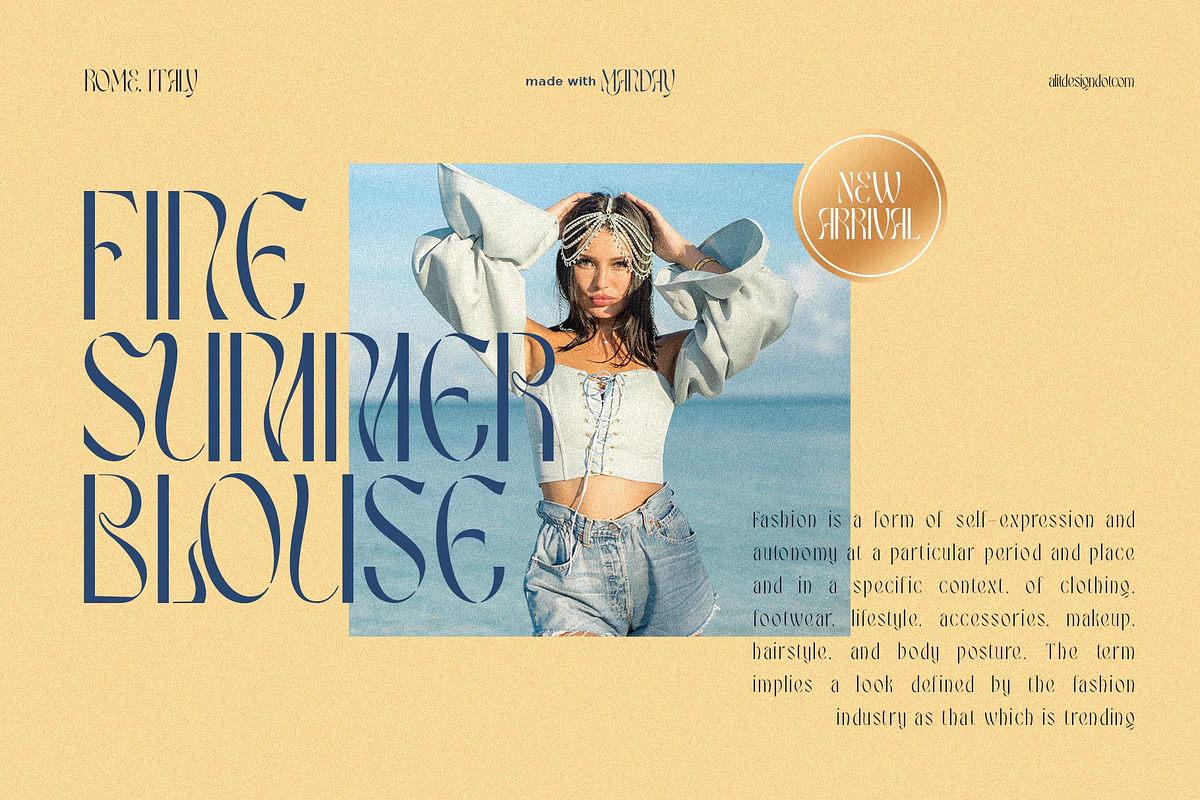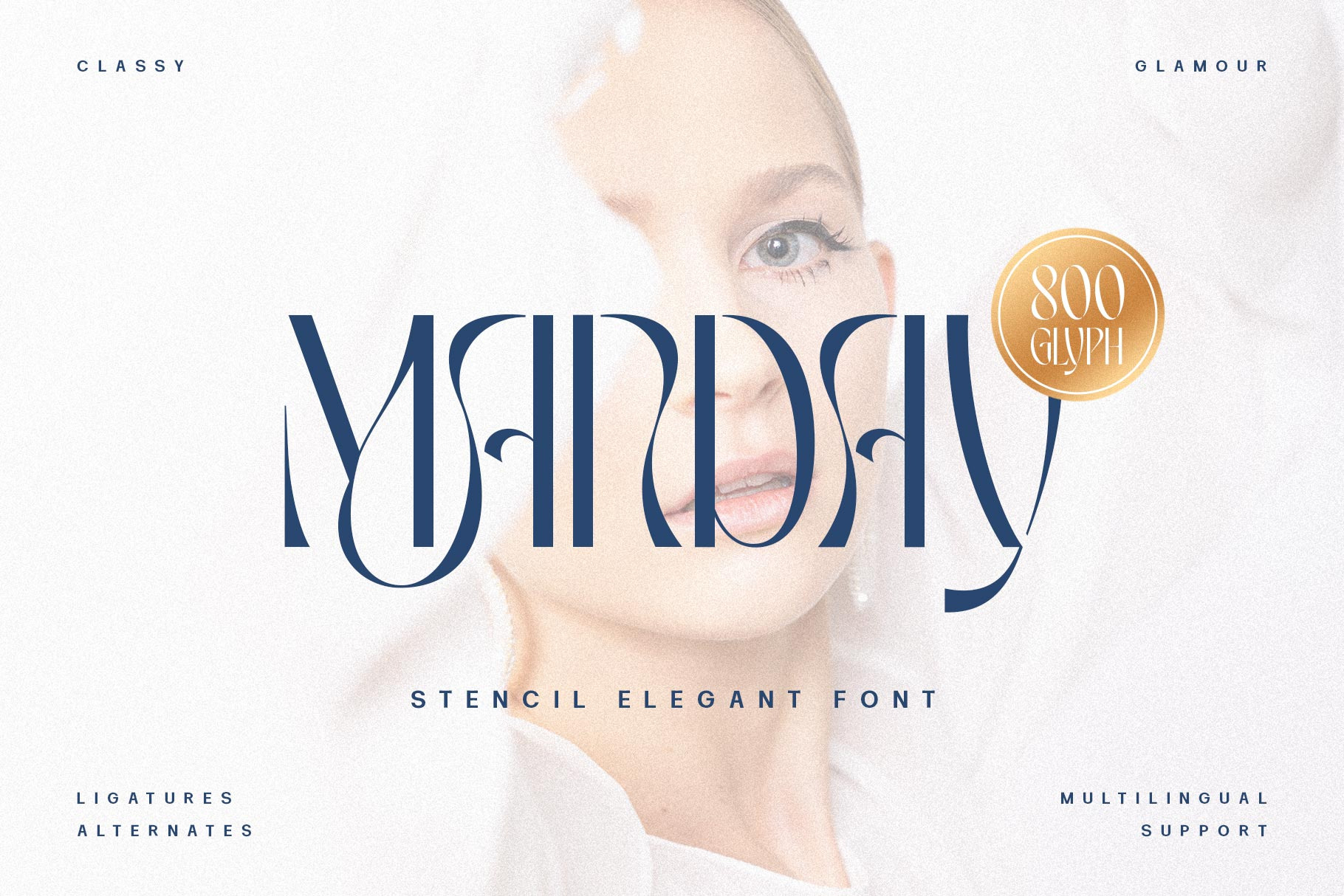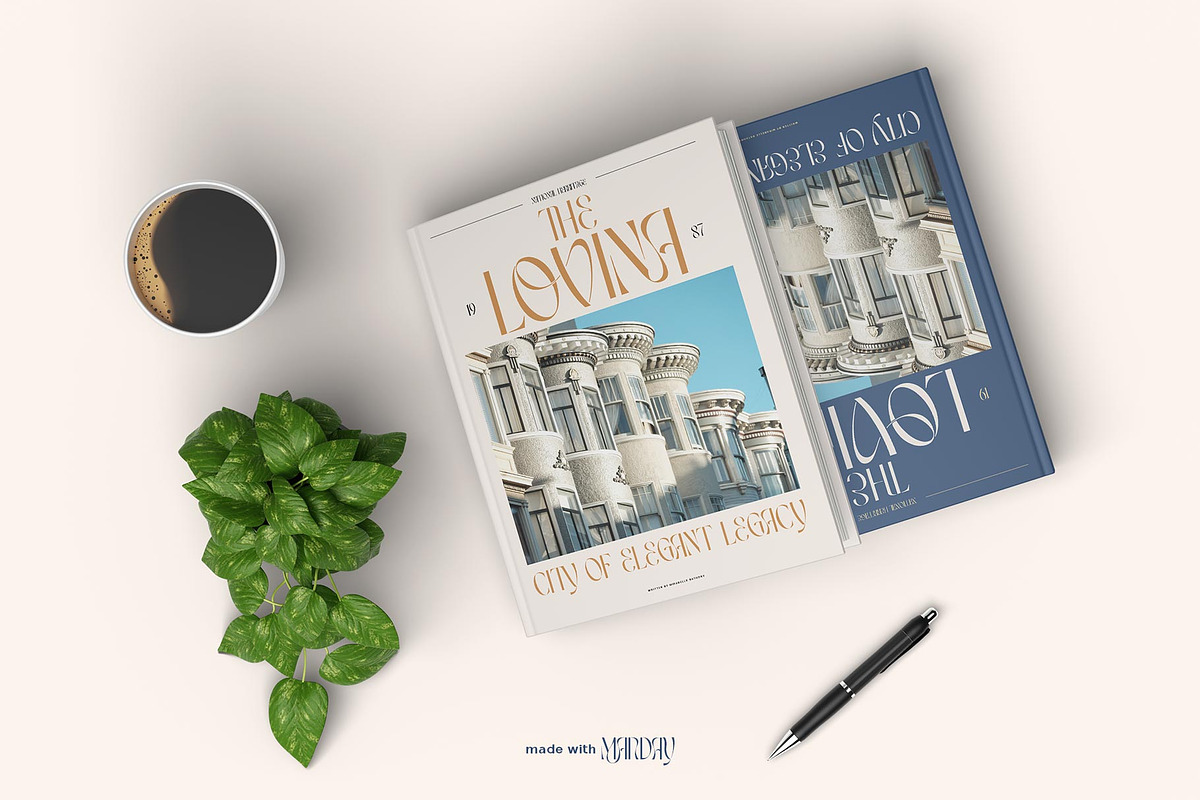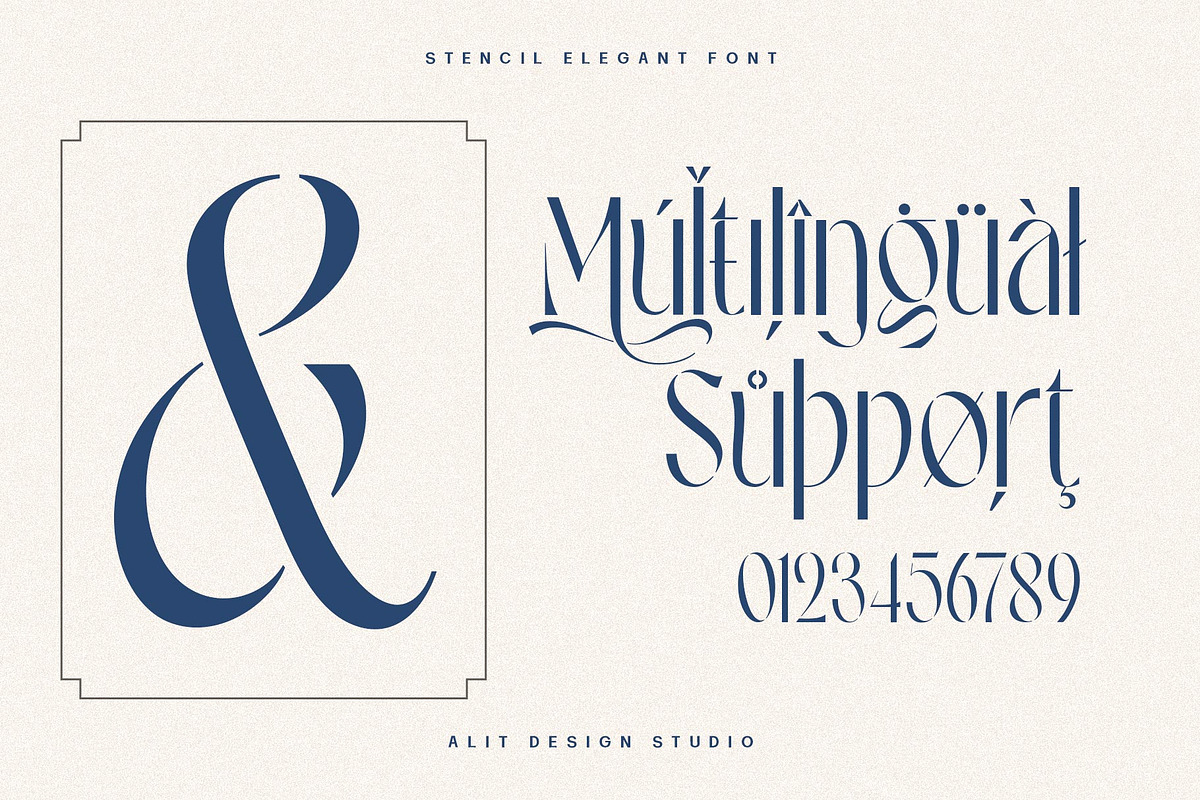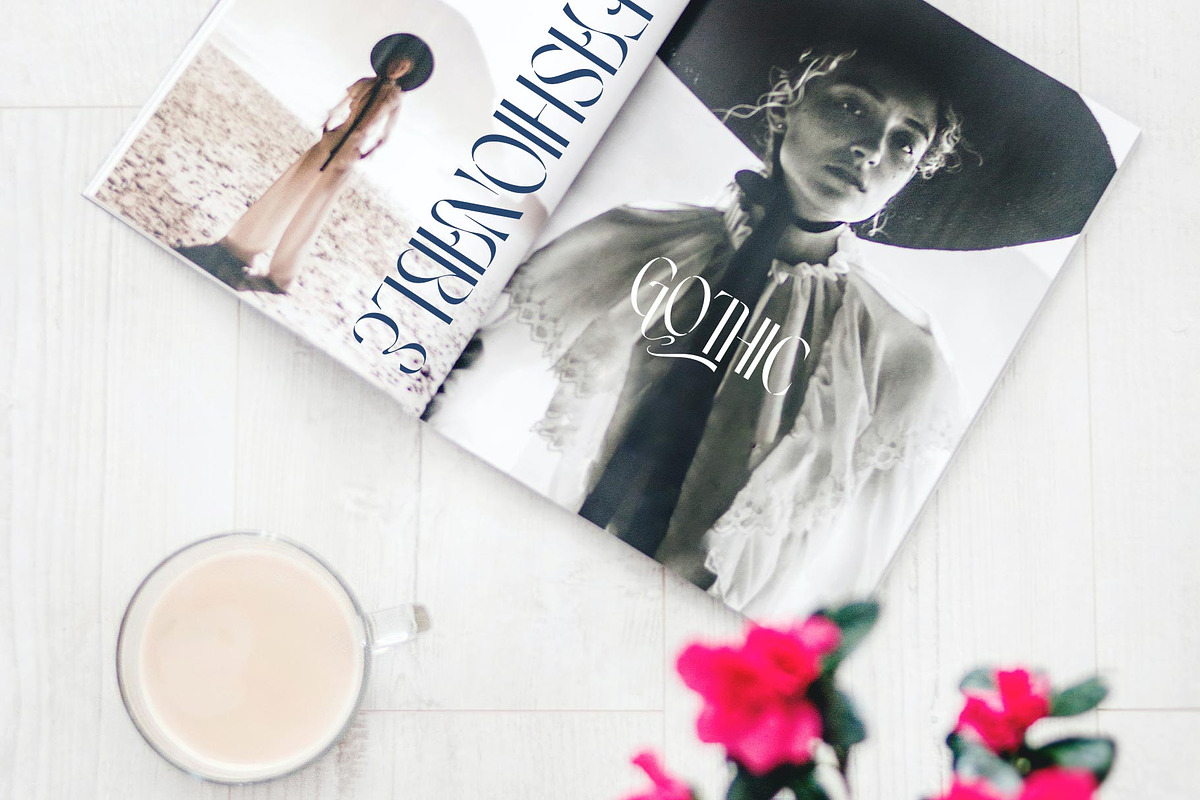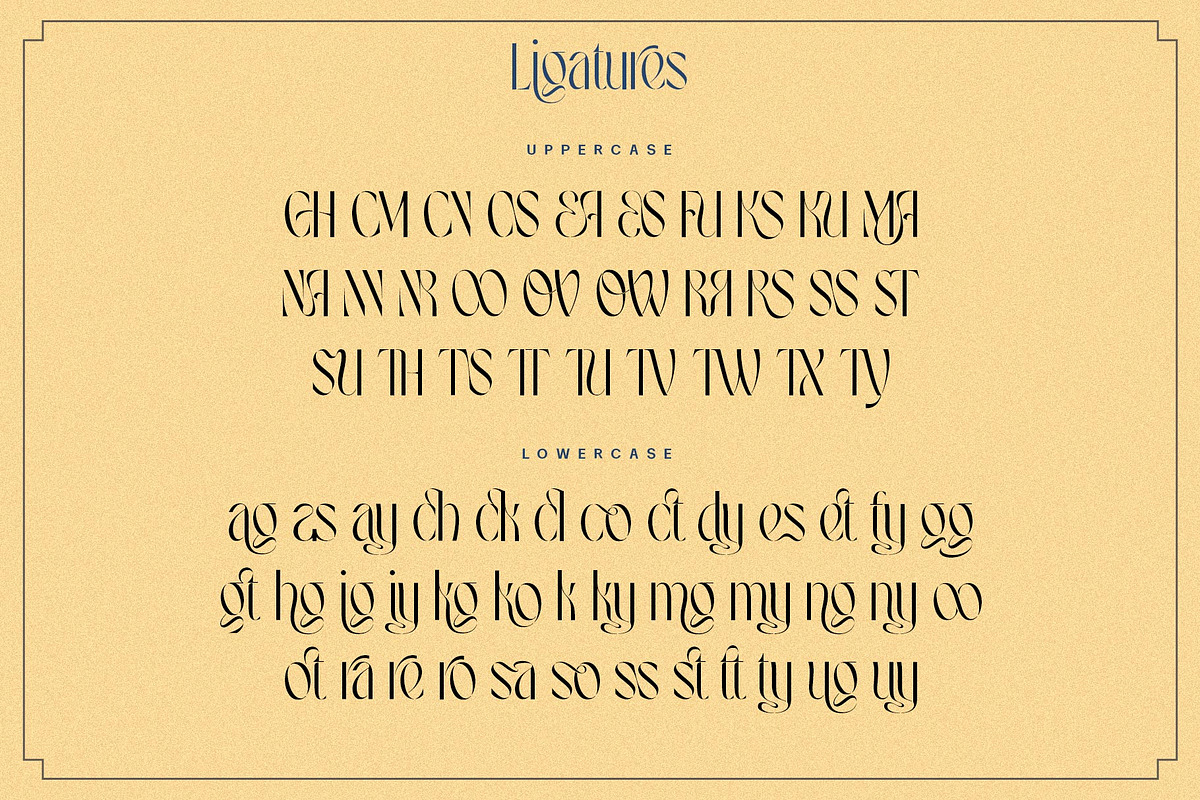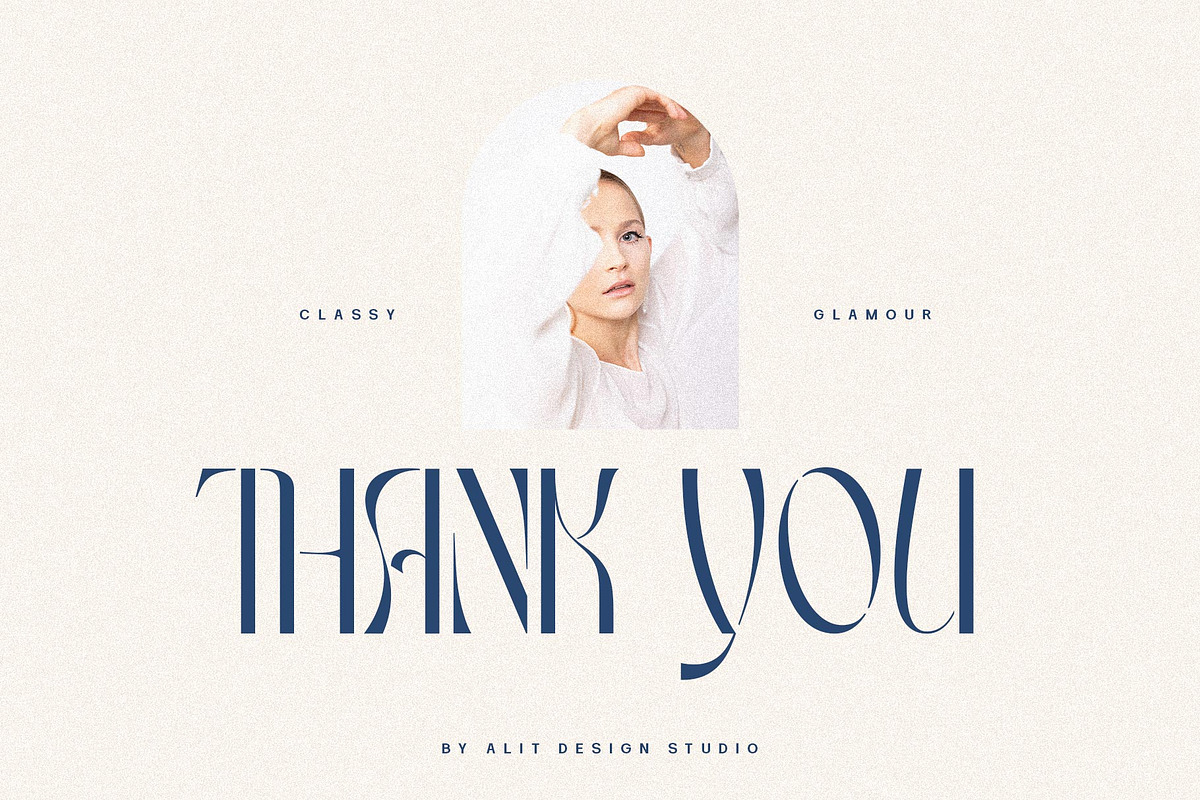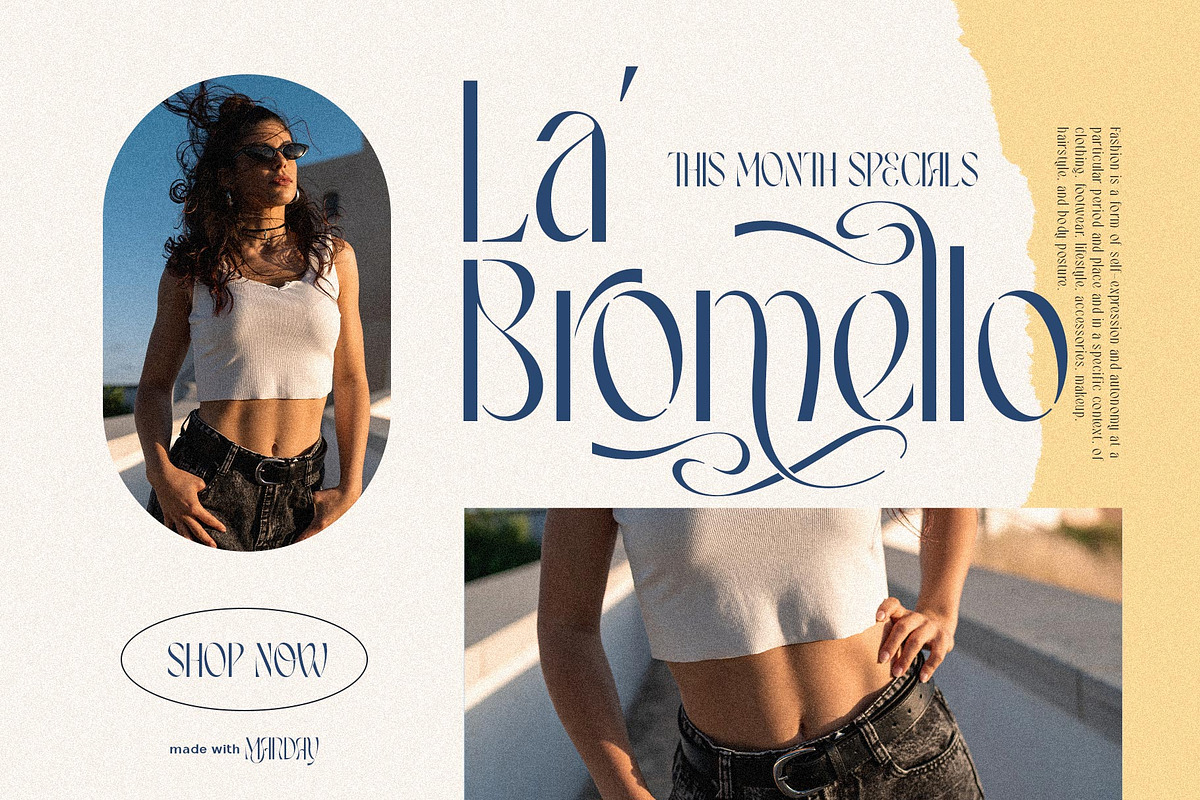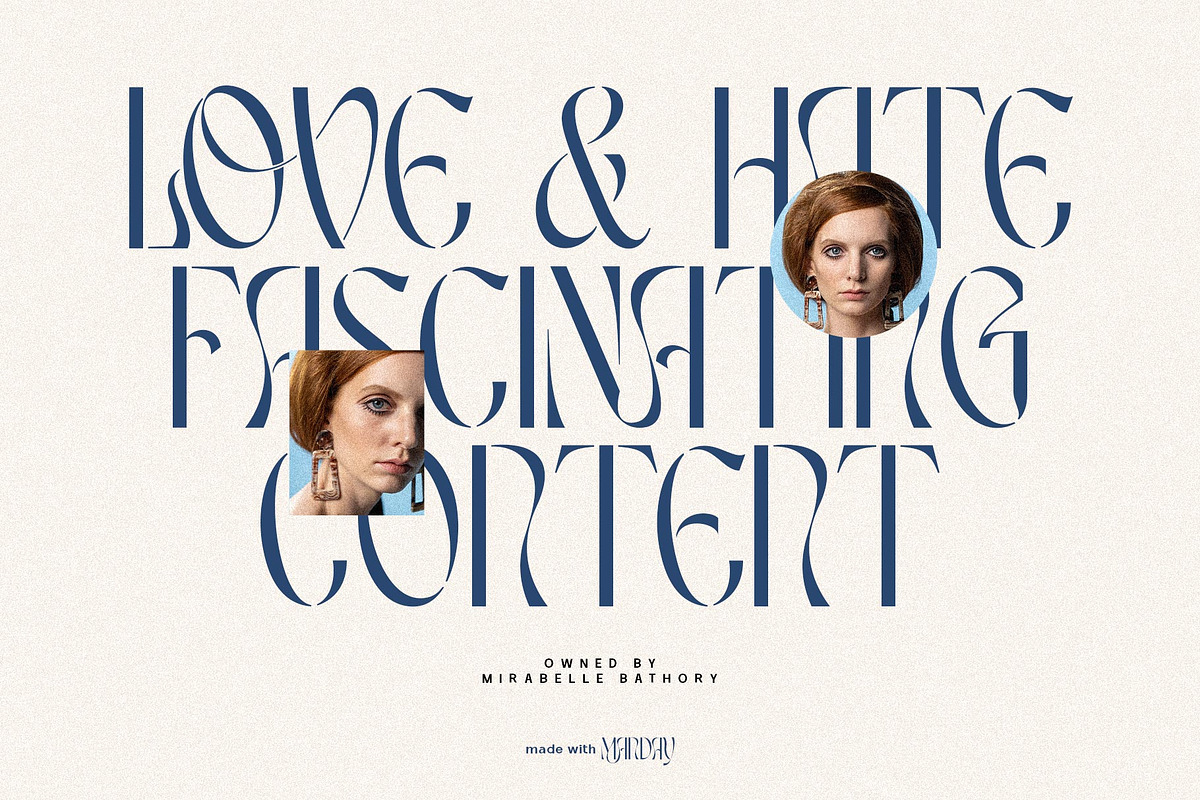
Manday Typeface
We want to create a different feel for the stencil font style. Usually stencil fonts are synonymous with military, retro and bold characters, but here we created the MANDAY font with an elegant and attractive stencil style for a modern design, combined with a subtle swash. In addition to swash in the MANDAY font, there are also many alternative character shapes and unique Discreationary ligatures. So the MANDAY font is very worthy of being a font collection on your computer for projects with a unique and charming elegant concept.
Sans serif typefaces such as "MANDAY" are very easy to apply to any design, especially those with an elegant, modern and classic, besides that this font is very easy to use both in design and non-design programs because everything changes and glyphs are supported by Unicode (PUA).
The "MANDAY"contains 800 glyphs with many unique and interesting alternative options.
Language Support : Latin, Basic, Western European, Central European, South European,Vietnamese.